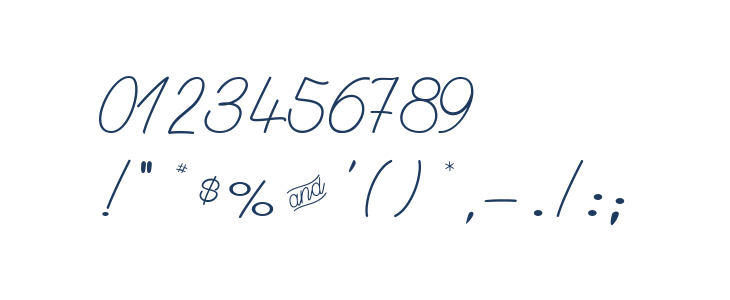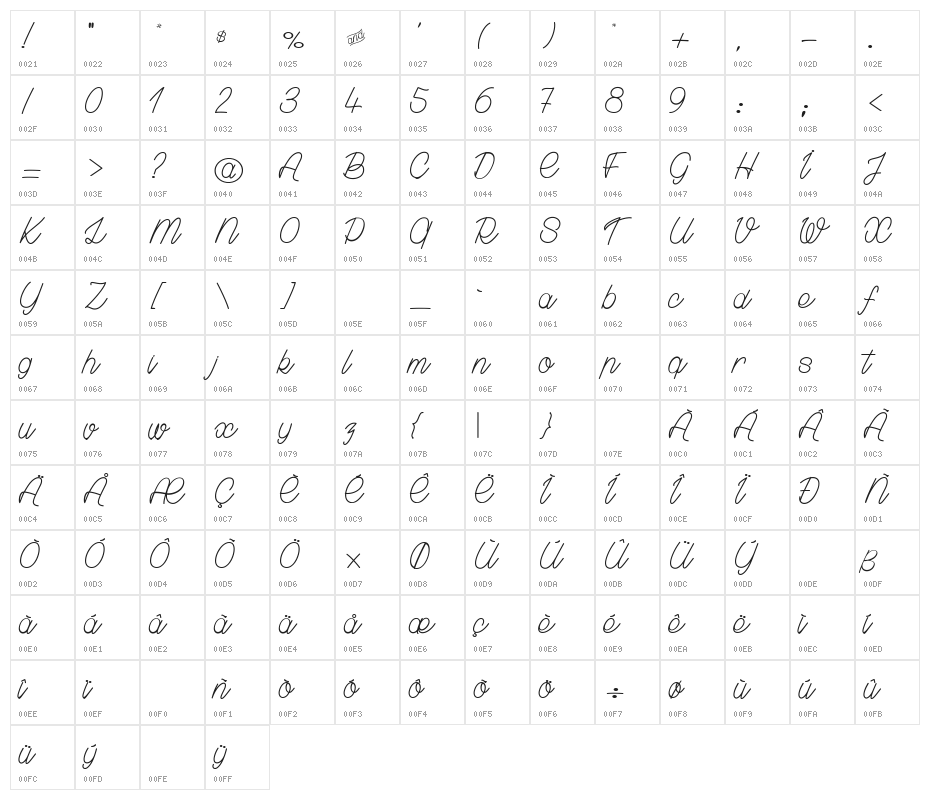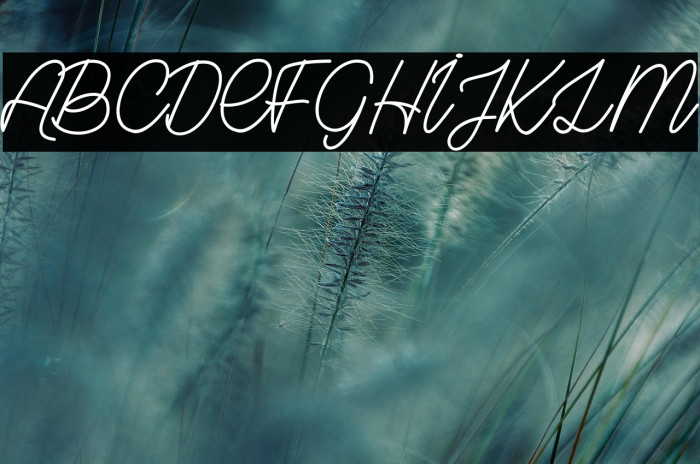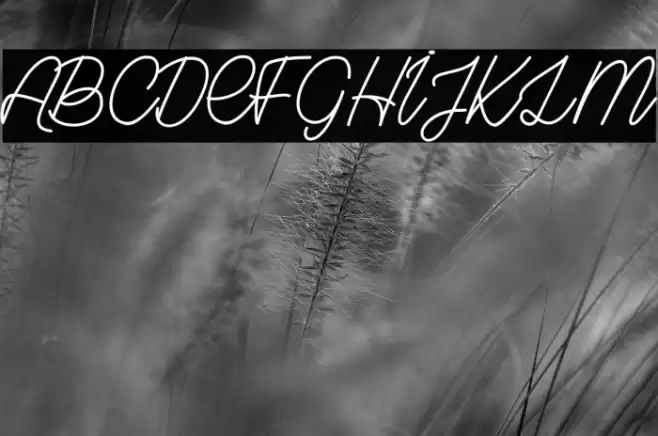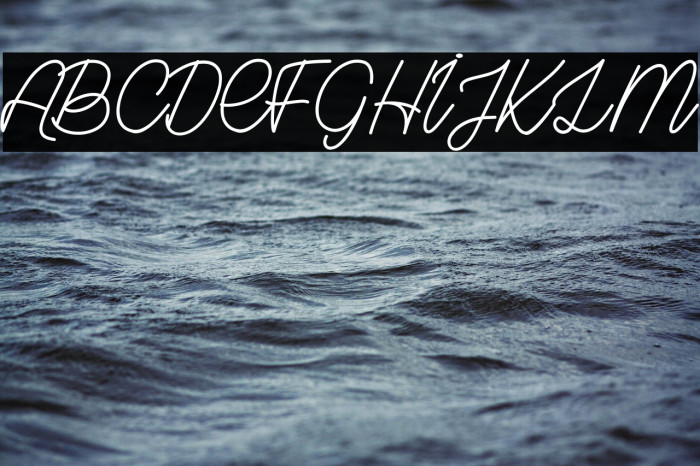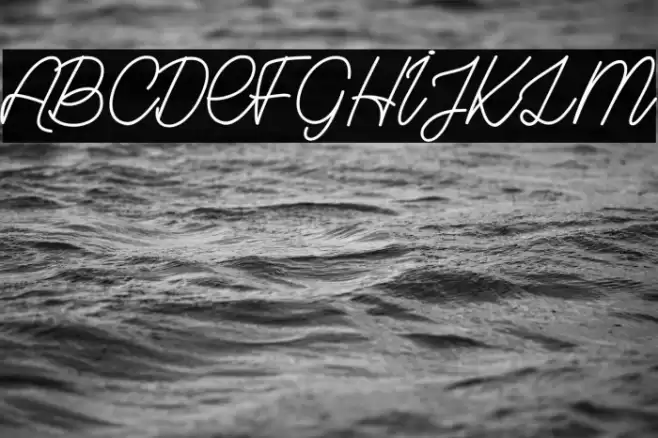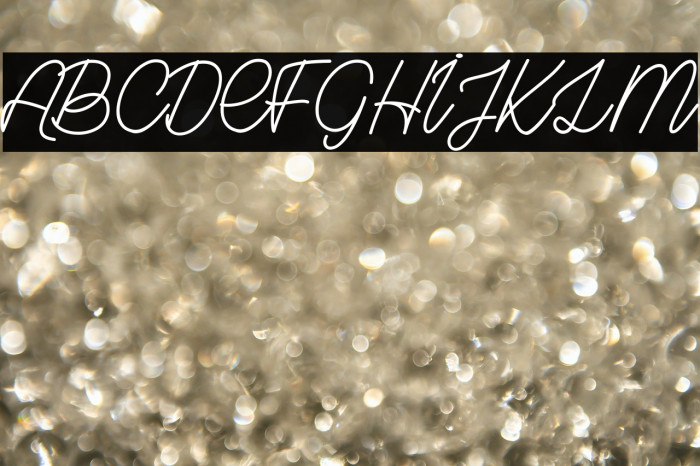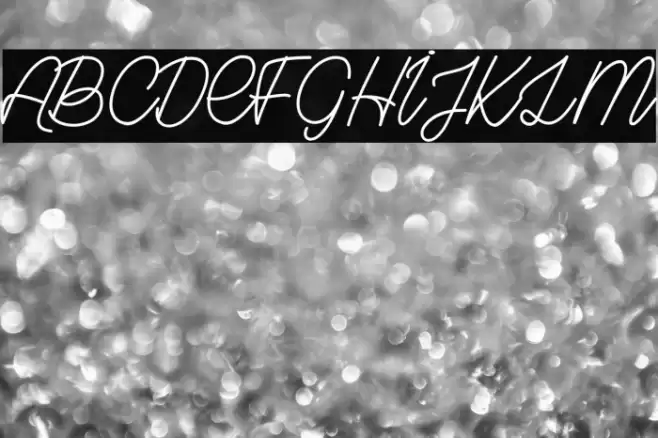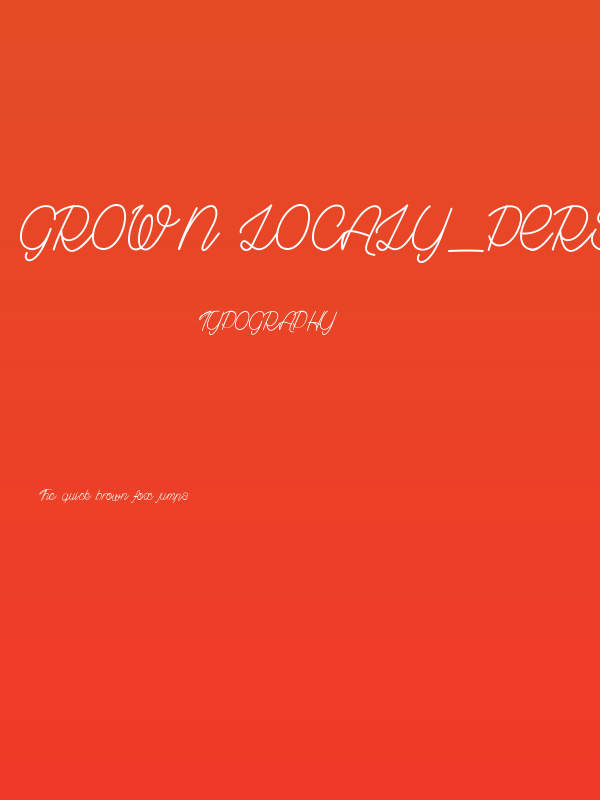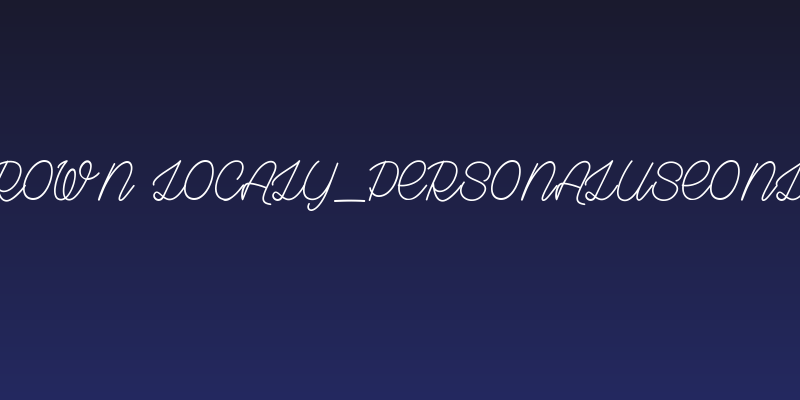
Grown Localy_PersonalUseOnly Font
Grown Localy_PersonalUseOnly Description
This font features a fluid, cursive style that mimics elegant handwriting. The characters are connected, giving it a continuous flow that is both sophisticated and approachable. The uppercase letters maintain a consistent height, while the lowercase letters have a slight slant, enhancing the handwritten feel. The numbers are clear and legible, matching the style of the letters. Special characters are thoughtfully integrated, maintaining the overall aesthetic. This font is ideal for projects that require a personal touch, such as invitations, greeting cards, or branding materials that aim to convey warmth and elegance.
| Use Case | Headlines, Invitations, Personal branding |
| Proposed Projects | Invitations, greeting cards, personal branding, elegant stationery. |